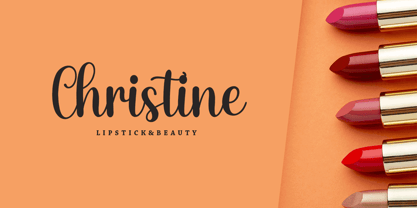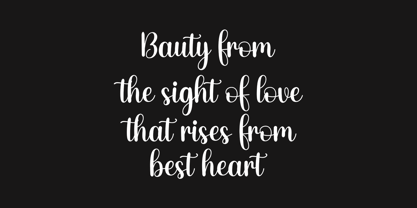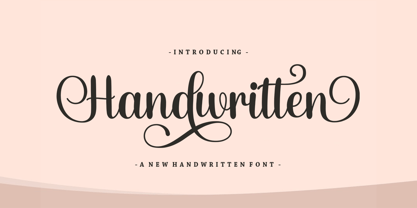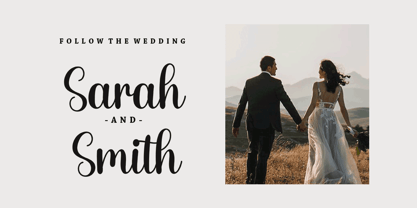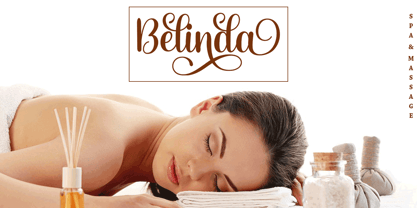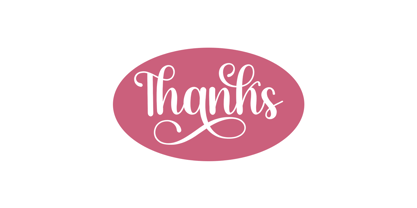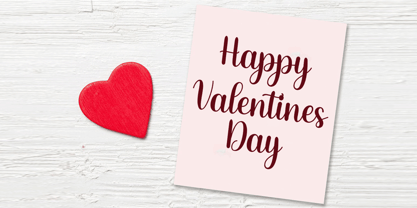
Handwritten Script
by Good Design
The Handwritten Script Font Family was designed by Agus Pujiyono and published by Good Design. Handwritten Script contains 1 styles. More about this family
Handwritten Script is an incredibly distinct, delicate and timeless handwritten font. It looks stunning on wedding invitations, thank you cards, quotes, greeting cards, logos, business cards and every other design which needs a handwritten touch.
Designers: Agus Pujiyono
Foundry: Good Design